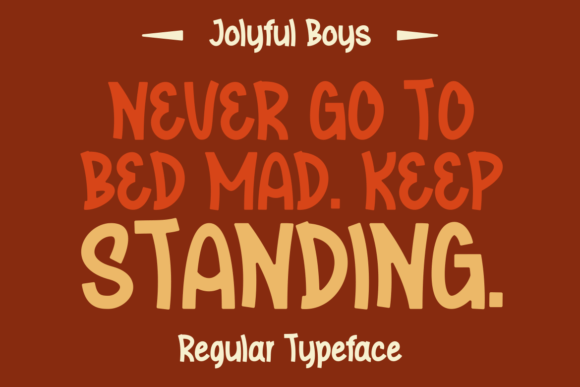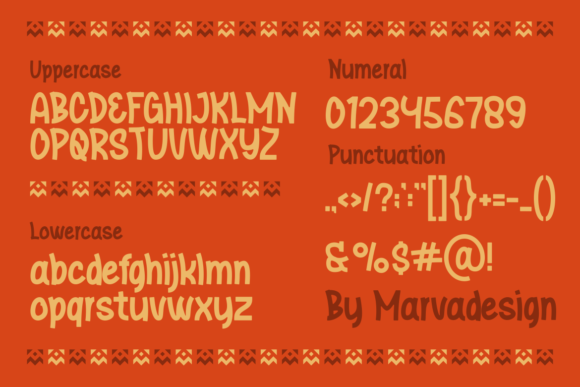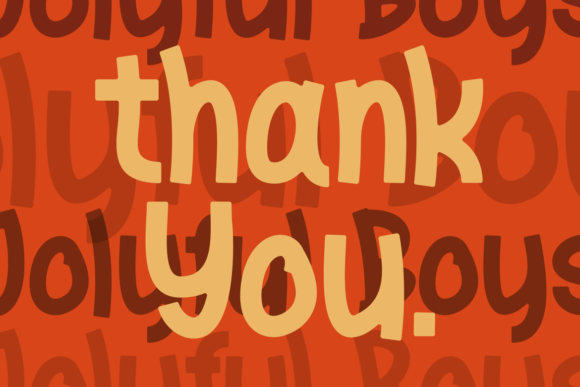
Introduction to Jolyful Boys Font
Do you remember that moment when you’re working on a creative project, and you just can’t seem to find the perfect font to match your vision? You scroll through countless options, and nothing seems to capture the playful essence you’re going for. That’s where the Jolyful Boys Font comes in – a fun and quirky display font that’s sure to bring a smile to your face.
With its unique letterforms and playful curves, the Jolyful Boys Font is the perfect design resource for adding a touch of personality to your designs. Whether you’re working on a free download or a high-quality print project, this font is sure to elevate your creative work. And the best part? It’s available for download, so you can start using it right away – no need to worry about transparent backgrounds or complicated licensing agreements.
- High-quality design resource suitable for creative projects, including invitations, posters, and social media graphics.
- Unique, hand-drawn style with a playful and whimsical feel, making it perfect for adding a touch of personality to your designs.
- Comprehensive character set, including uppercase and lowercase letters, numbers, and punctuation marks, to support a wide range of creative applications.
- Perfect for designers looking for a distinctive and eye-catching font to elevate their designs and leave a lasting impression.
Honest Review: Jolyful Boys Font
As a designer, I’ve had the pleasure of working with a wide range of fonts for various creative projects. Recently, I stumbled upon the Jolyful Boys Font, and I must say it’s been a delightful addition to my design resource arsenal.
What works well about the Jolyful Boys Font is its playful and energetic vibe. The font’s rounded edges and smooth lines make it perfect for projects that require a touch of whimsy. I’ve used it for a few illustrations and it’s been a hit with my clients. The font also comes with a transparent background, which is always a bonus when working with complex designs.
- Playful and energetic vibe that’s perfect for illustrations and graphics
One limitation of the Jolyful Boys Font is that it may not be suitable for formal or professional projects. The font’s playful nature may not be fitting for corporate or business designs.
To get the most out of the Jolyful Boys Font, use it on a transparent background or with a high-quality image. This will allow the font to stand out and add a creative touch to your project. You can also experiment with different font sizes and styles to create a unique design.
The Jolyful Boys Font is ideal for creative projects such as invitations, posters, and social media graphics. It is also suitable for designing logos, business cards, and other marketing materials. With its high-quality design and transparent background, this font is a valuable design resource for any project.